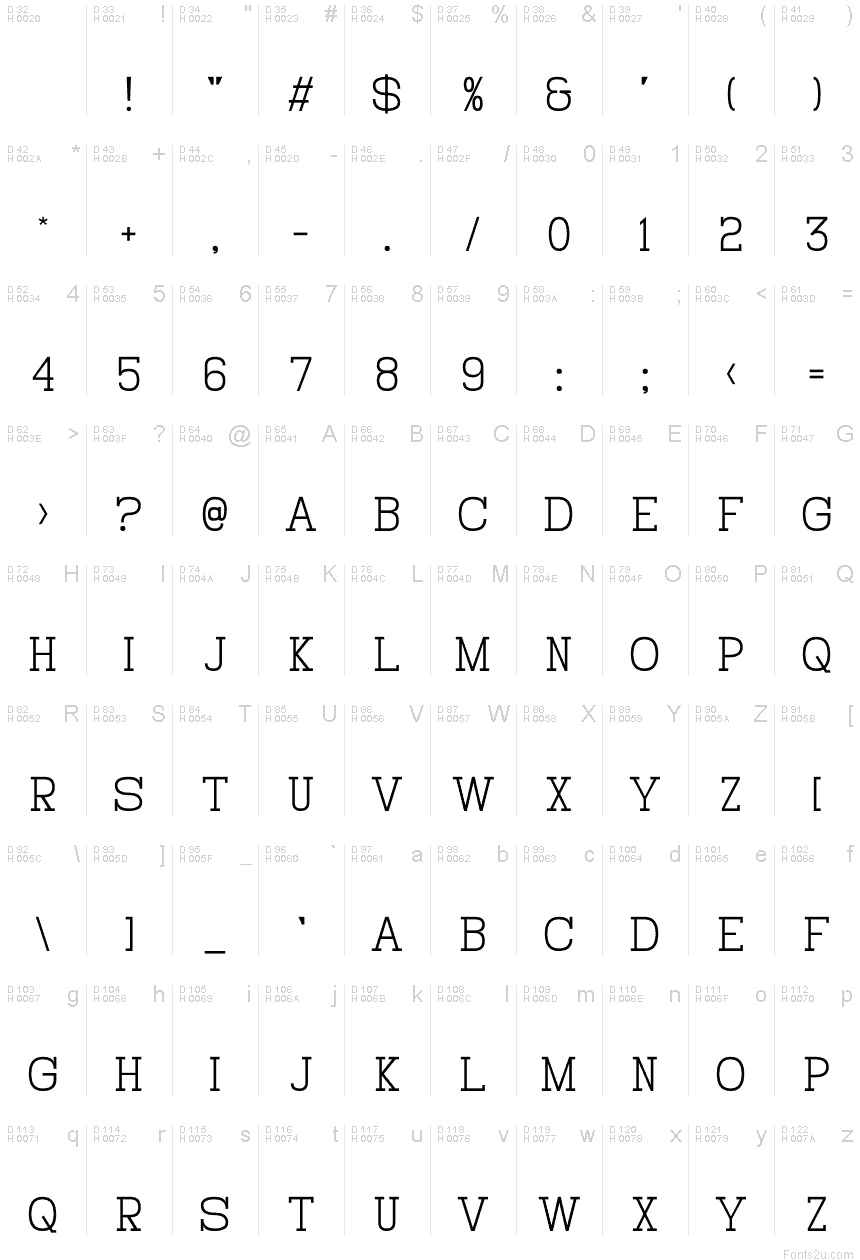
History Repeating Vertical
History Repeating Vertical font by Starving-4 Entertainment is a free condensed serif typeface. Its letters are stretched tall and straight, with slim, even strokes and tiny wedge serifs that feel almost architectural, like steel beams in ink. The tight, upright texture gives words a cool, old‑print atmosphere while still reading cleanly at a glance.
Using History Repeating Vertical, headlines stack neatly in narrow spaces, making it a natural fit for posters, book covers, album art, zines, editorial mastheads, and logo wordmarks. This free font shines when set large with generous line spacing; pair it with a simple geometric sans for supporting text to keep the focus on its striking vertical rhythm.
A single-exposed simple stick-figure font, featuring Miss Shirley Bassey.
When used with HR Horizontal, it can produce some weird effects.